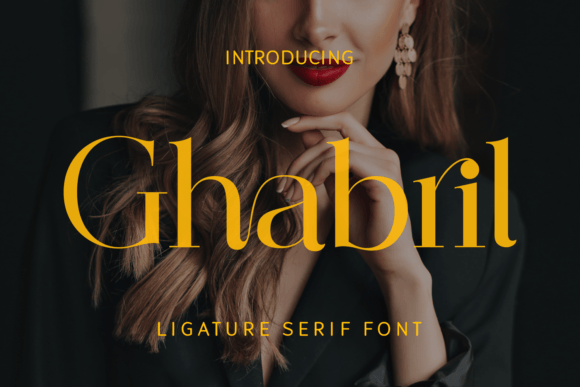
Introducing Ghabril Font, the epitome of sophistication and modernity in the world of typography. Crafted by the talented Damai from 7NTypes, this serif font is a delightful blend of timeless elegance and contemporary flair. With its intricate ligatures and captivating design, Ghabril Font is the ultimate choice for those seeking to elevate their creative projects.
Are you a fashion enthusiast looking to make a statement with your designs? Ghabril Font is the answer! Its exquisite details and refined strokes exude an air of luxury and refinement, making it the perfect companion for any fashion-related project. Whether you're designing a logo, creating a magazine spread, or curating an eye-catching website, Ghabril Font will effortlessly elevate your work to new heights.
One of the standout features of Ghabril Font is its versatility. While it excels in the realm of fashion design, this font is also a fantastic choice for a variety of other projects. Its sleek and clean lines make it ideal for branding, packaging, and editorial design. Let your creativity soar as you experiment with this font's captivating curves and impeccable letterforms.
But Ghabril Font is more than just a striking visual asset. It has the power to evoke emotions and captivate your audience. Imagine your fashion brand's name gracefully presented in Ghabril Font on your storefront signage. The combination of its timeless elegance and modern edge will undoubtedly leave a lasting impression on potential customers, drawing them in with a sense of intrigue and allure.
In summary, Ghabril Font is the epitome of sophistication, combining timeless elegance with modern flair. Its intricate ligatures and captivating design make it the perfect choice for fashion design and beyond. Elevate your creative projects with this versatile font, and watch as it captivates your audience and leaves a lasting impression. Unleash your creativity and unlock the true potential of your designs with Ghabril Font.